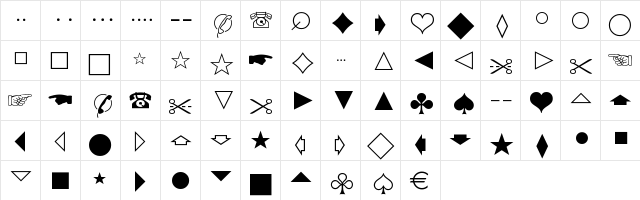
Newspaper Pi Normal Font Preview
Newspaper Pi Normal
Design Context for Newspaper Pi Typeface
Newspaper Pi takes a measured approach to typography — its balanced proportions and neutral character make it a reliable workhorse for both digital and print work.